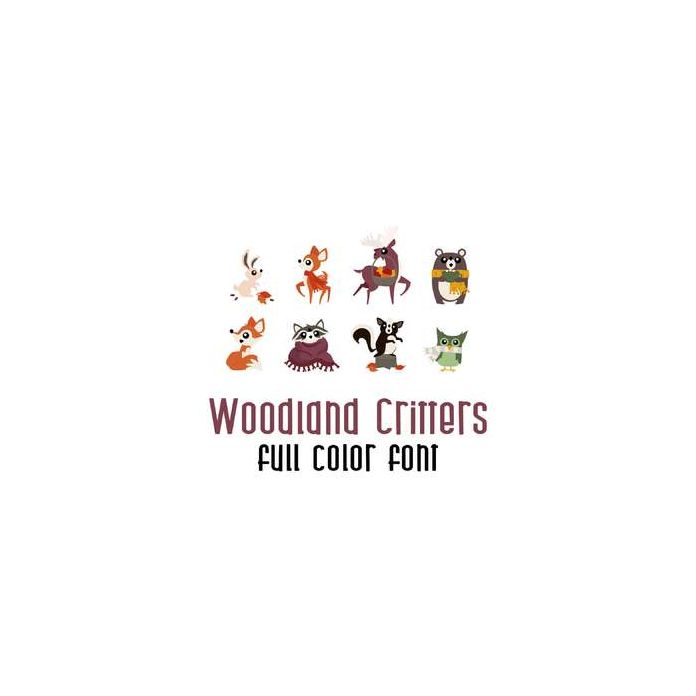
This adorable full color doodlebat font features adorable woodland animals ready for Fall. Perfect for cards, crafts, gifts, decor, scrap book pages, planner stickers and more!